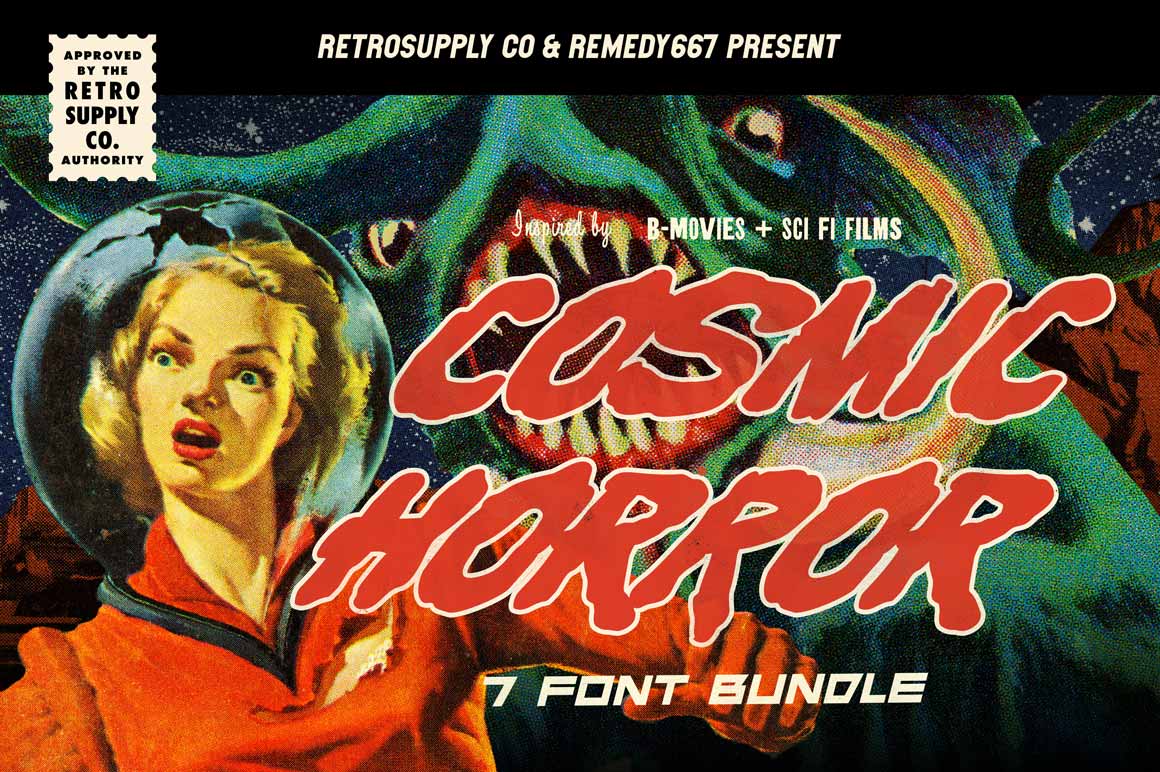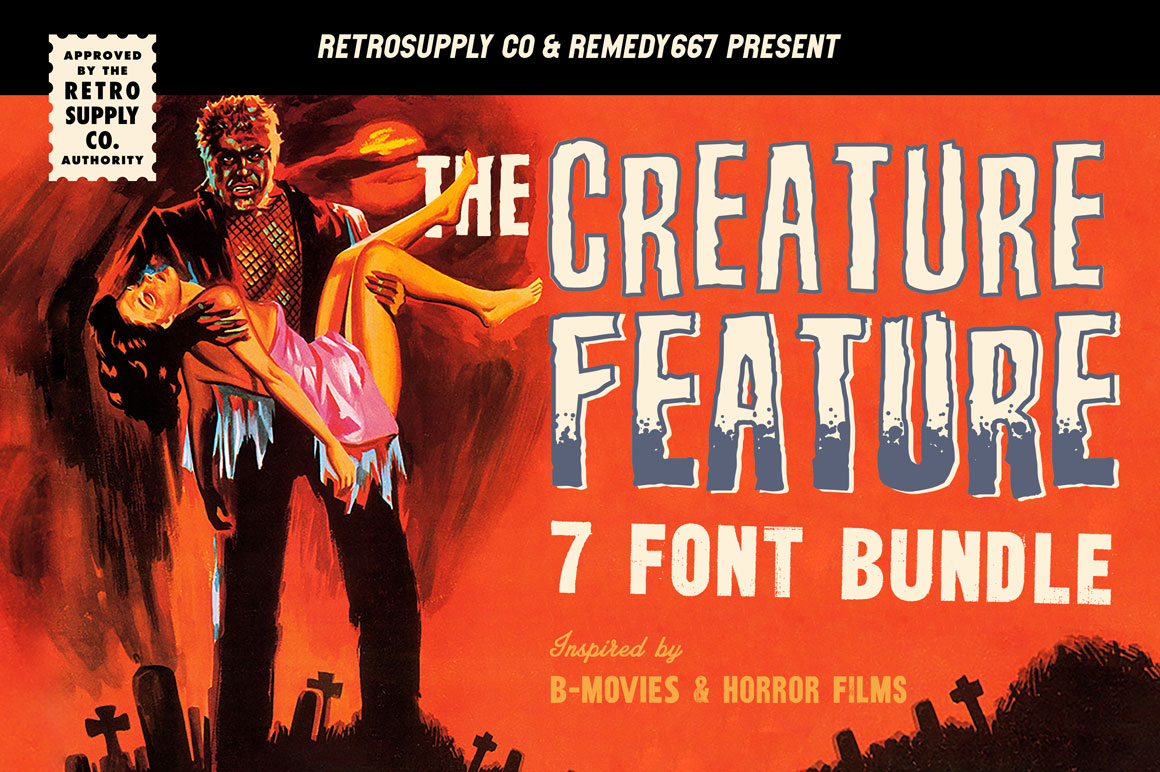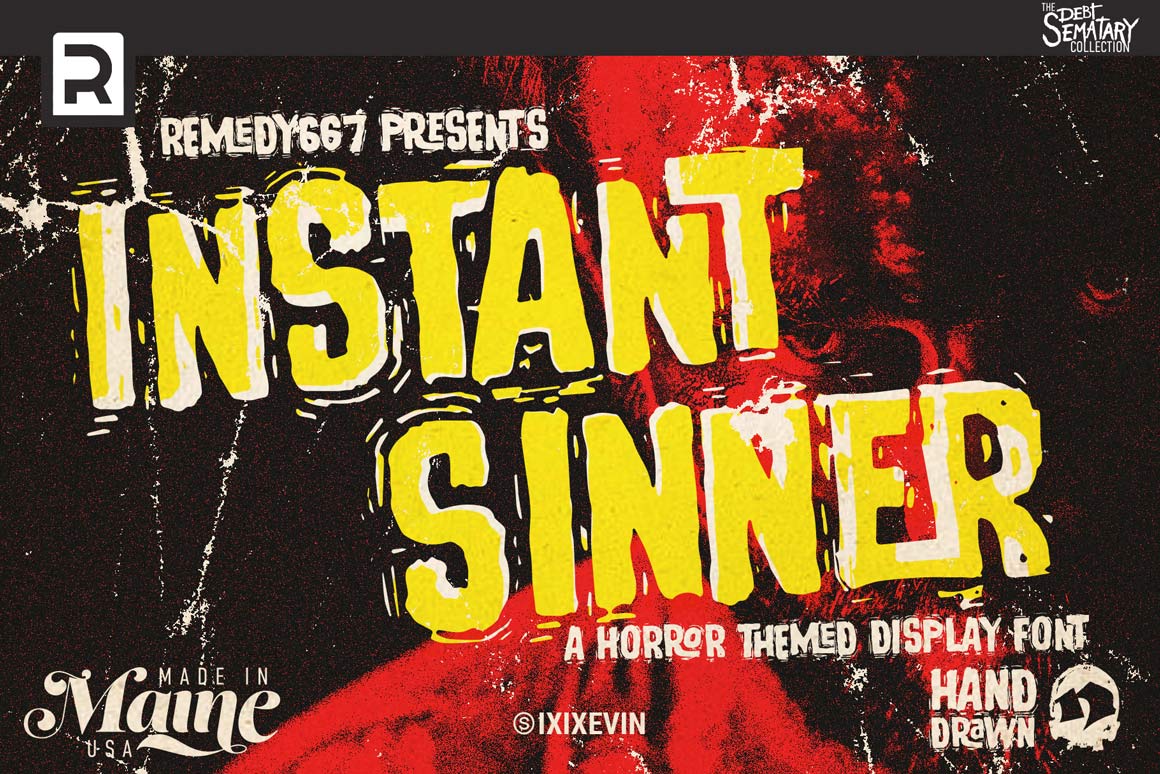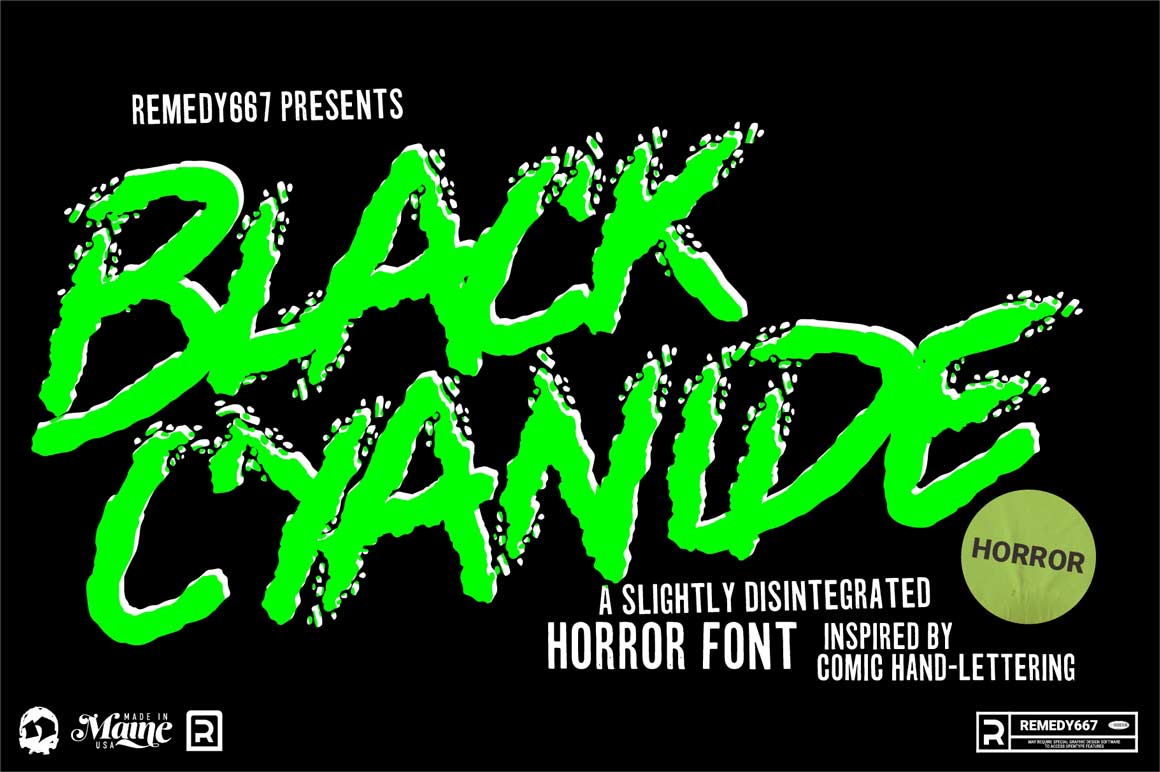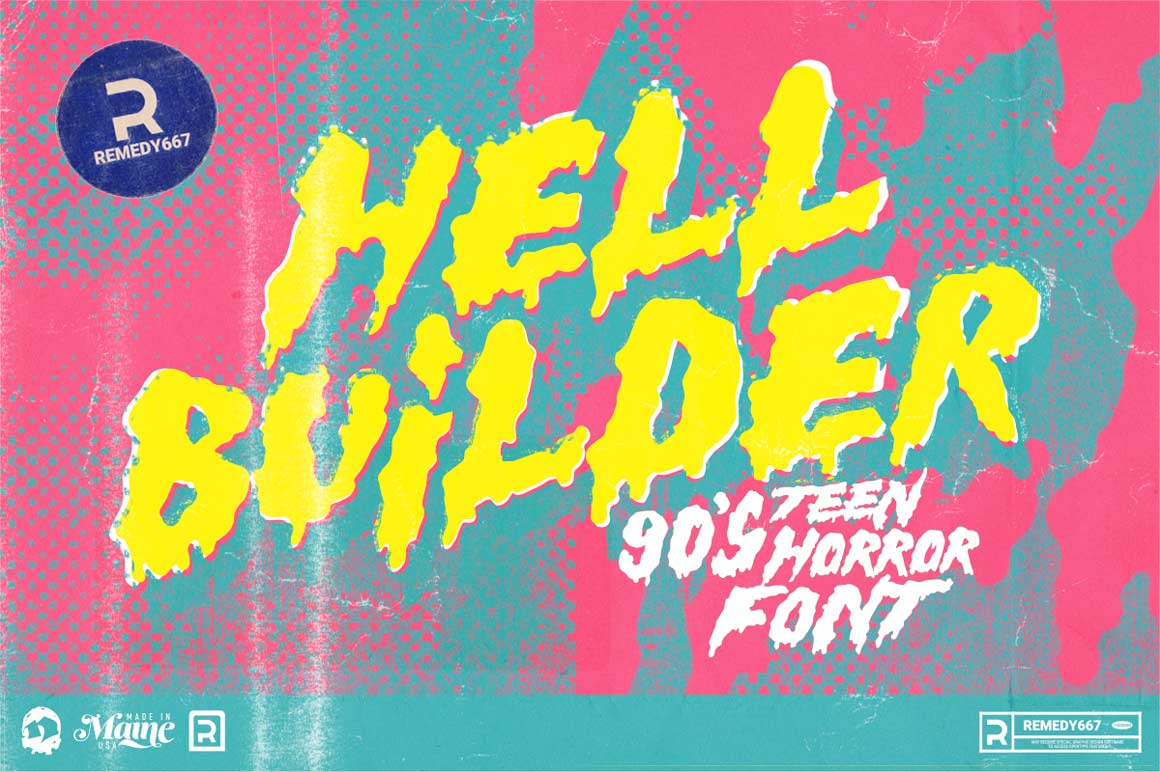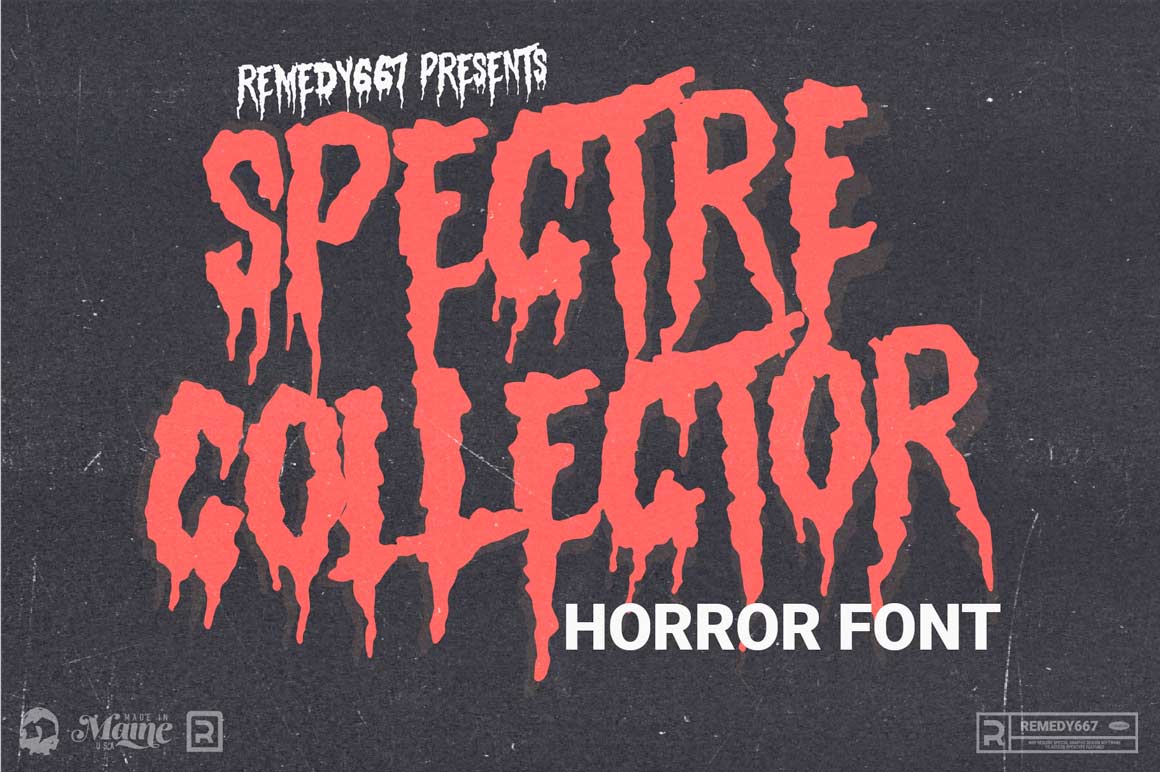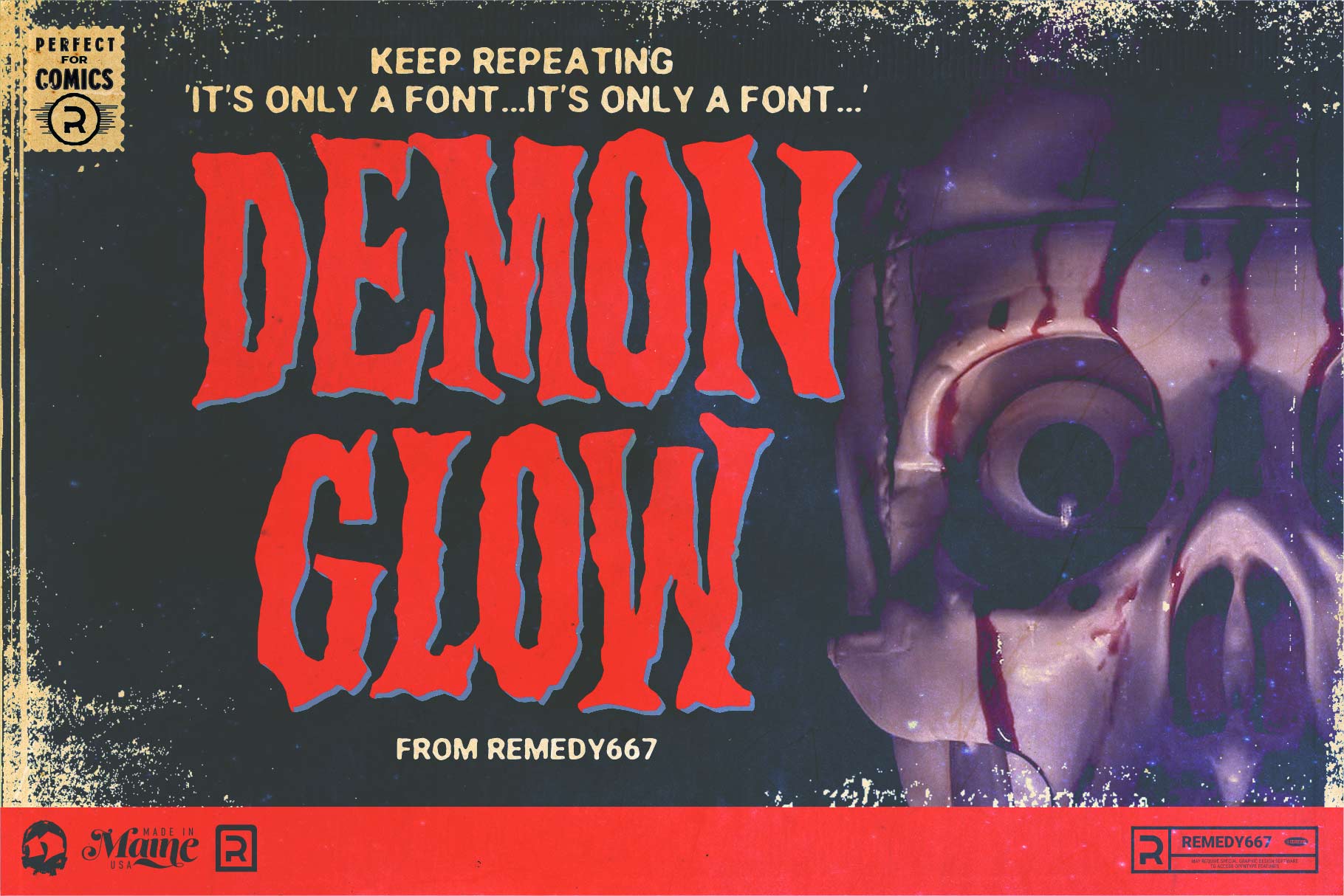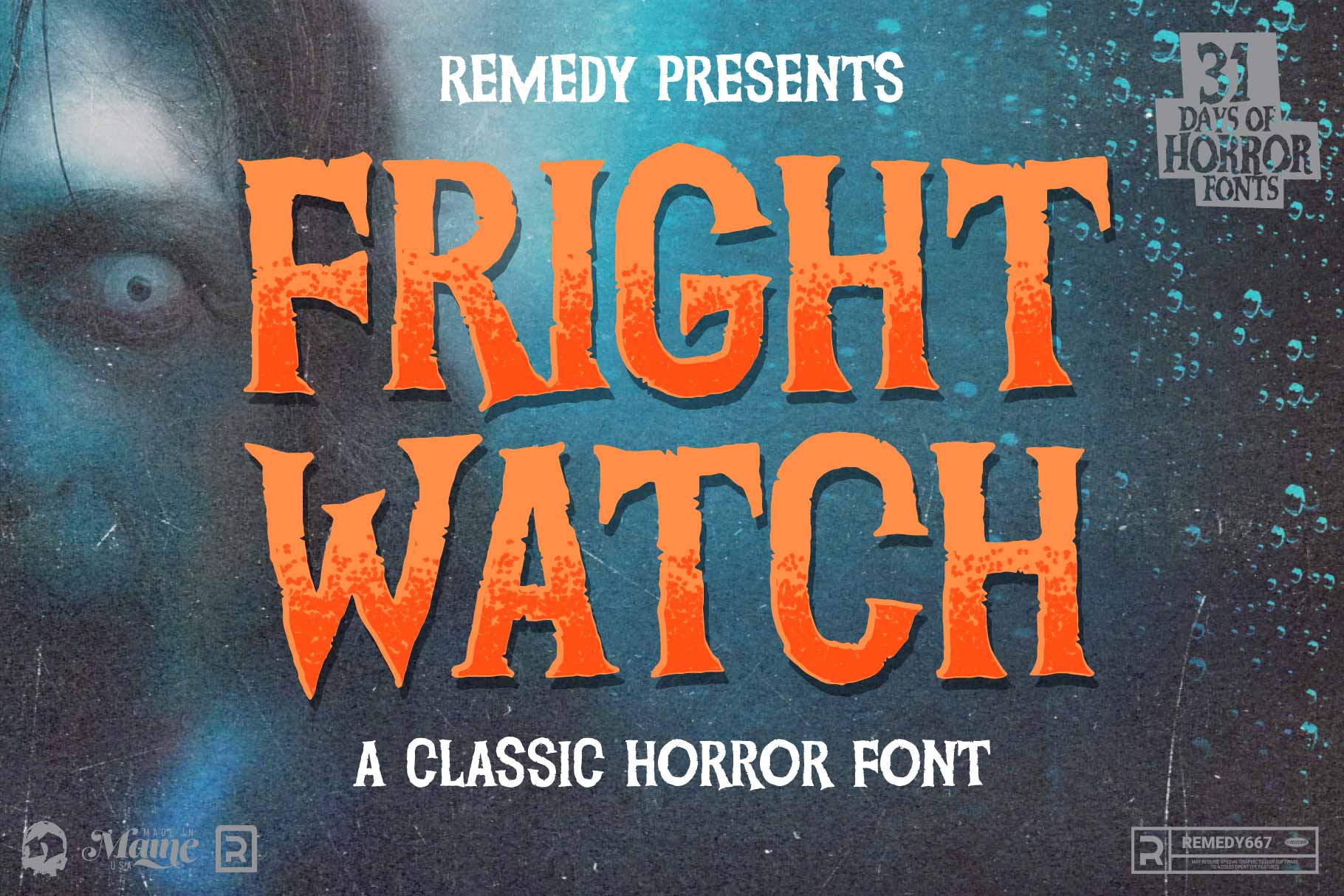
The Horror Font Master Bundle
Exclusive horror font bundle that pays homage to horror b-movies, creepy vintage sci-fi, and monster movie heritage.
Anyone who ever said horror fonts aren't a staple of a designer's toolbox must've never seen the fonts from Remedy 667. Renowned for their dedication to authentic retro horror fonts — The Horror Font Master Bundle delivers all the fonts you need to bring old school chills to any project.
• The Creature Font Bundle. Inspired by classic 20th century horror cinema, from 1930s black and white to 1950s monster movies and 1970s B-movie slashers.
• The Splatter House Font Bundle. Capturing the raw, unfiltered essence of grindhouse cinema and slasher films, perfect for horror comics, posters, and packaging.
• The Cosmic Horror Font Bundle. Paying homage to classic sci-fi typography from films like Alien and The Thing, ideal for space comics, posters, and mind-bending designs.
• Expertly crafted by Remedy 667. Known for their specialization in horror and sci-fi typography, ensuring authentic and character-rich fonts.
• Versatile use cases. Perfect for movie posters, comics, packaging, and any design needing a terrifying or out-of-this-world touch.
A solid pack of poster fonts.
The pricing was good, but I wish they came with more variables and opentype features. castle of the dead was my favorite in the pack and i really wabred to use it as a header for the chapters in a book layiut im workin on, but they were just a tad bit too tall . Excited to see the next retrosupply font collections.
It Came From Planet Douche!
Finding myself suddenly living in a horror movie run by creeps, I needed some fonts to match my feeling of impending doom! The Atomic Creep bundle hit the spot. Now I can express the depress!
Fantastic Fonts!
This set of classic inspired horror fonts are amazing! As an artist designing packaging for action figures based on horror films of the past, this set was a bloody, slimy, disgusting revelation! I give it 5 skulls!
A Good collection of fonts!
A very fun variety of fonts, personal favorite of mine is Instant Sinner